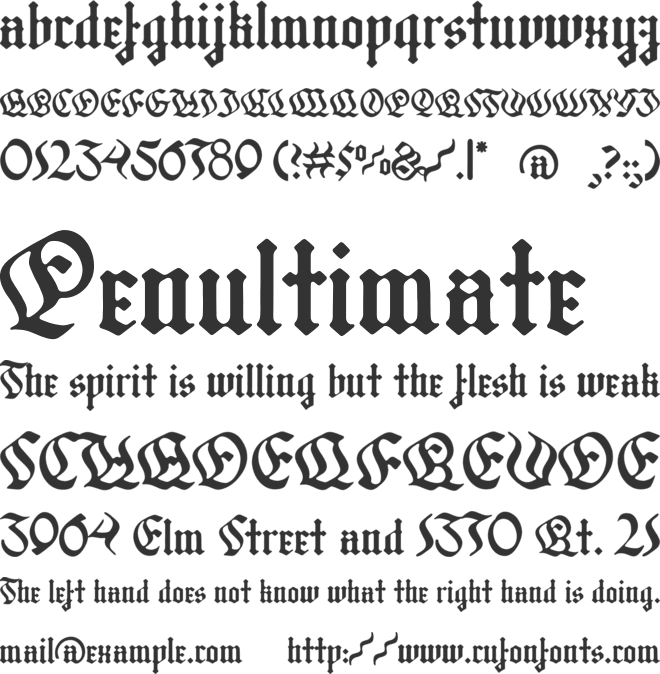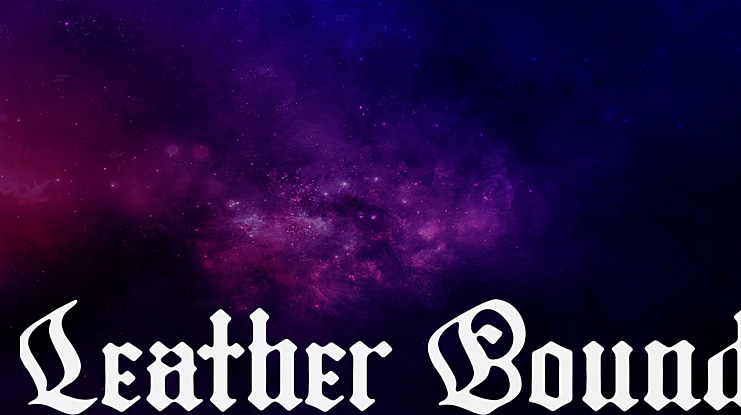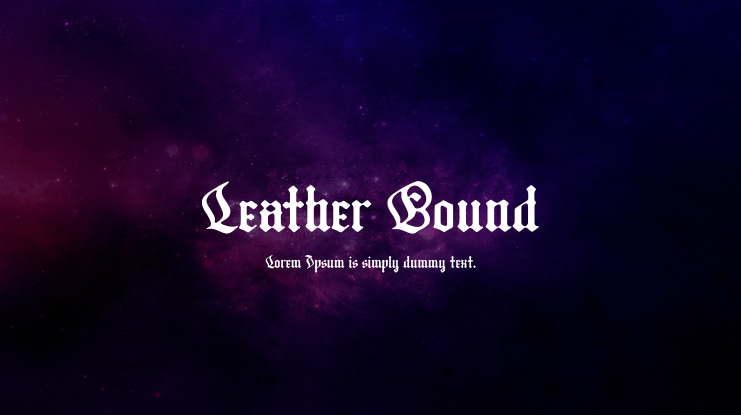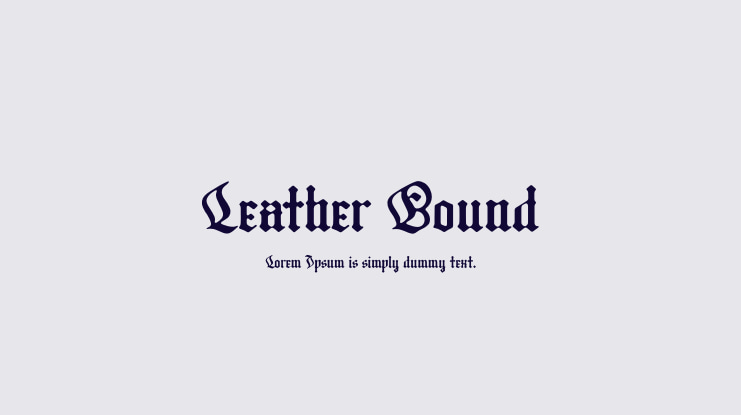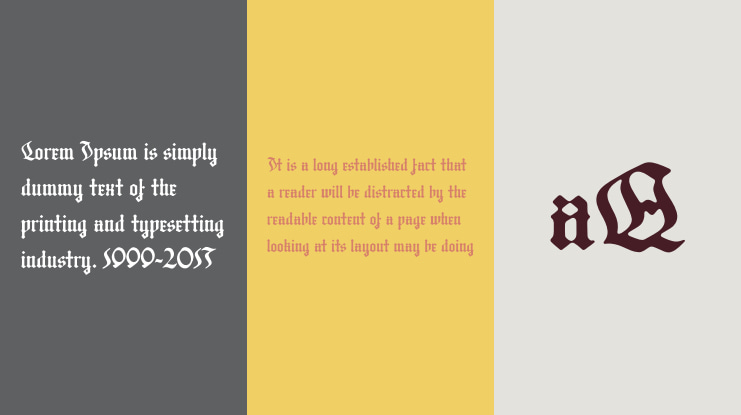
Leather Bound Font Family
This display typeface is a blackletter font in the retro style. Made from font designer named Hustle Supply Co. Elegant and rounded, it adds a bold touch to your projects and will inspire you to create something unique and modern. This font is also equipped with alternative characters, Ligatures, and multi-language support.